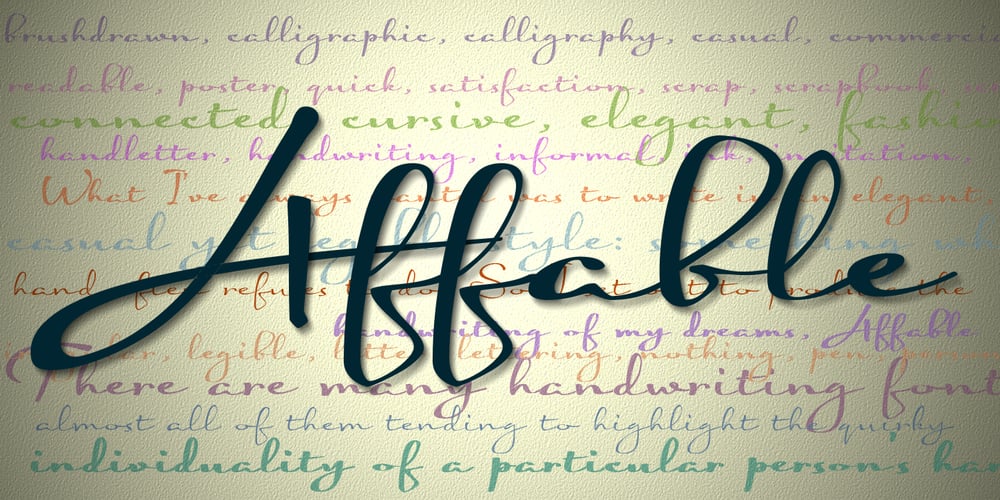
Affable
Affable font
Affable Font Family was designed by Anton Scholtz and published by Scholtz Fonts. Affable contains 3 styles and family package options. An elegant, contemporary and quirky handwriting font inspired by fonts such as Satisfaction and Nothing. There are many handwriting fonts out there, almost all of them tending to highlight the individuality of a particular person’s handwriting. I wanted to go beyond this. What I’ve always wanted was to write in an elegant, casual yet legible style: something which my own hand often refuses to do. So I set out to produce the handwriting of my dreams – this font. While it doesn’t match my dreams 100%, it certainly comes close! Affable comes in three styles, Affable Regular, Affable Blak and Affable Lite. The Affable family is fully professional, carefully letterspaced and kerned. All upper and lower case characters, punctuation, numerals and accented characters are present.